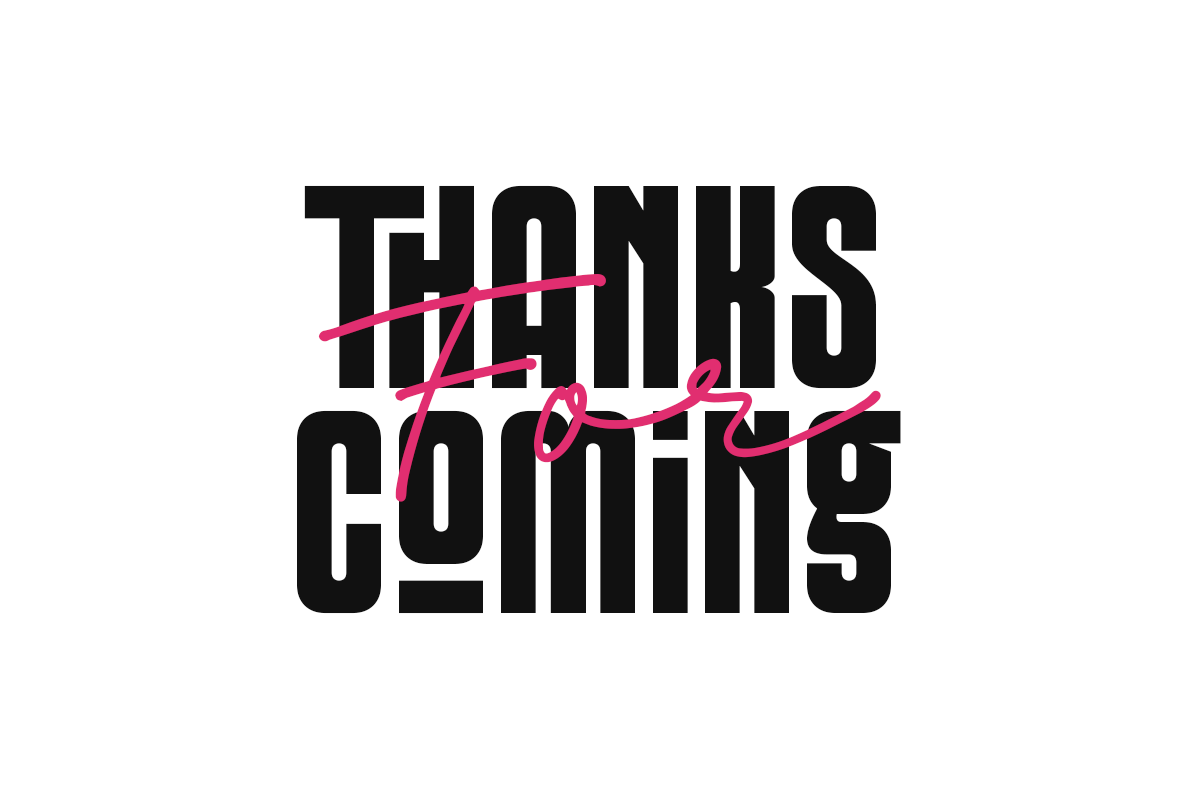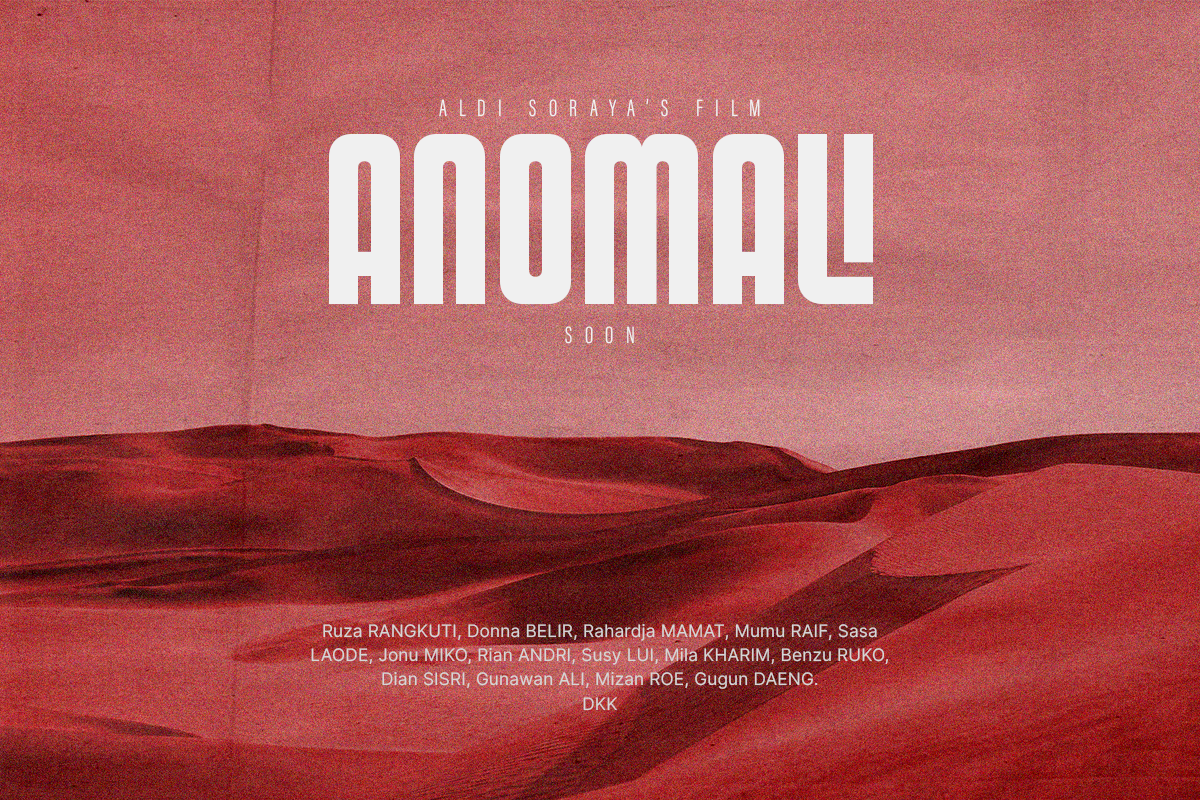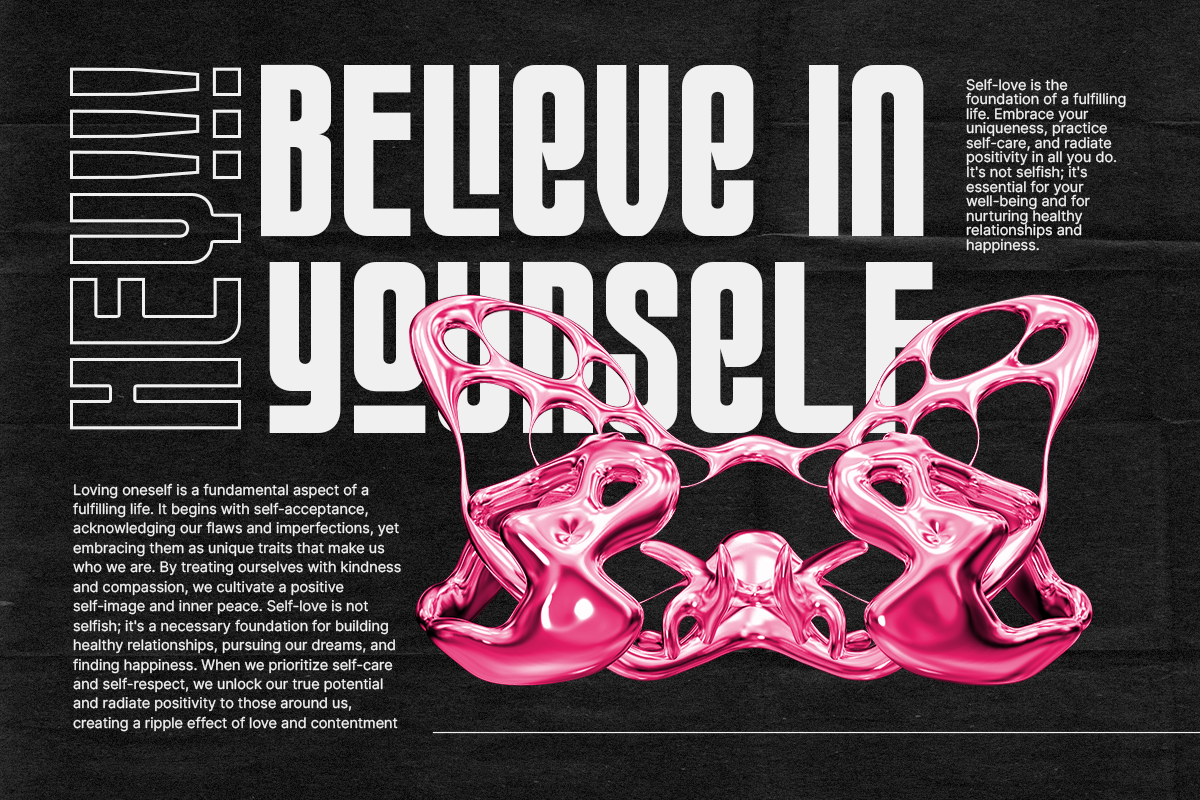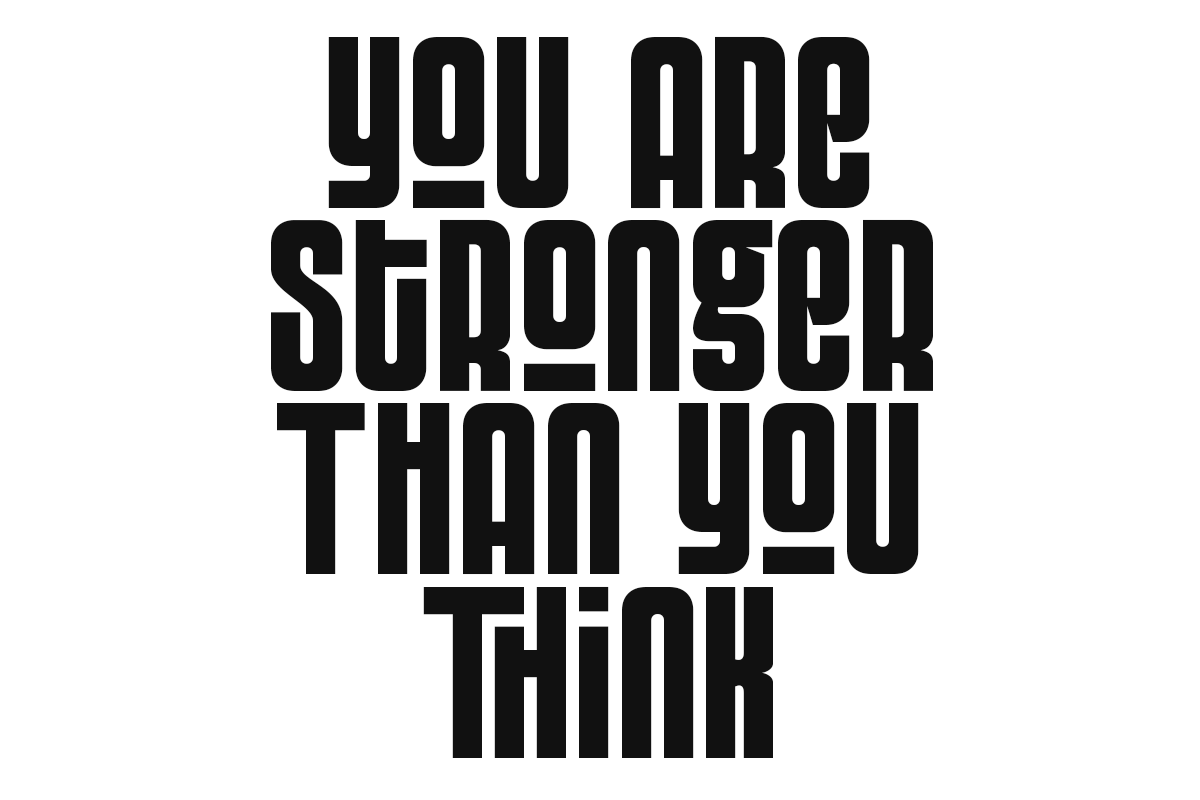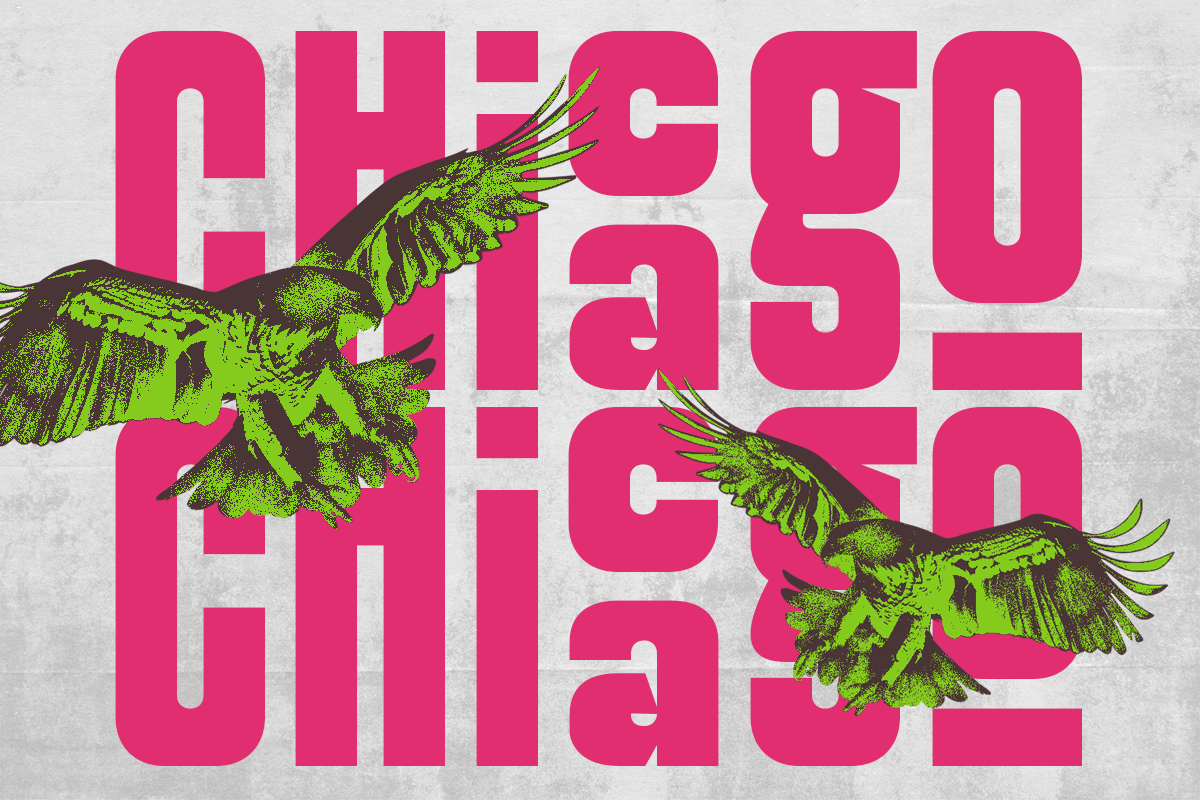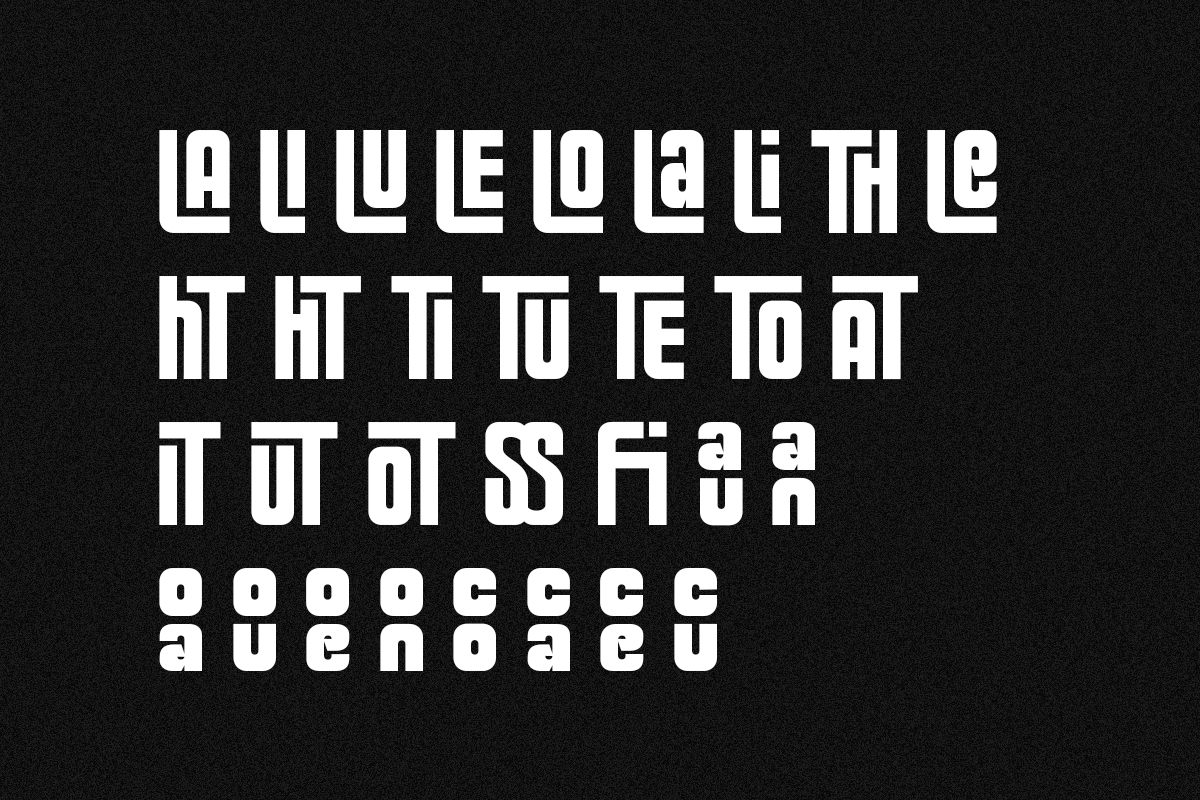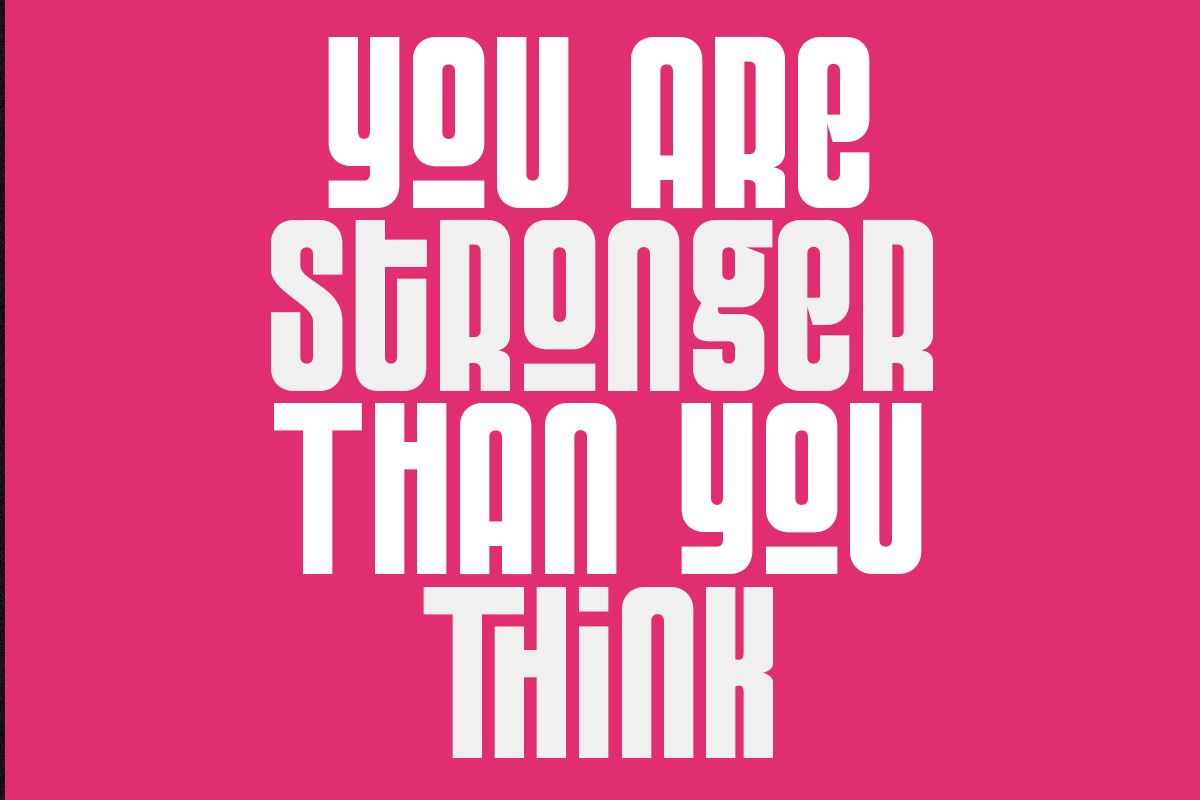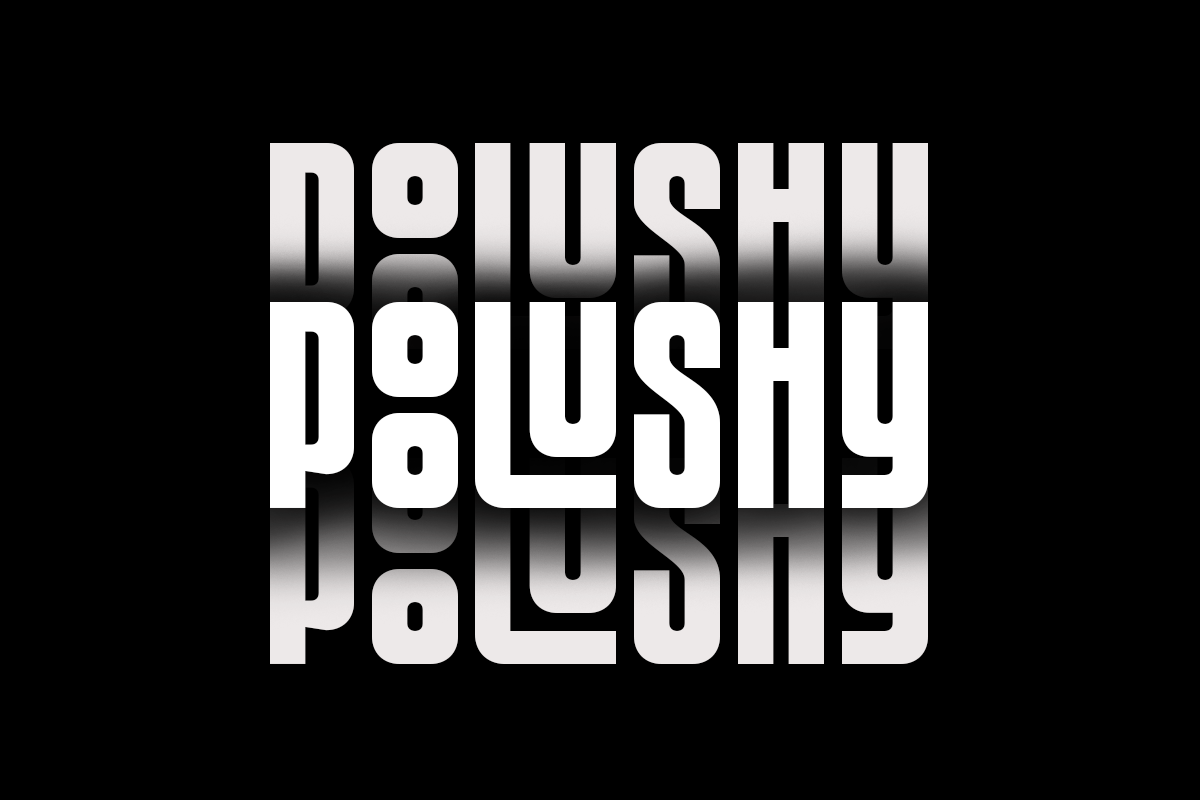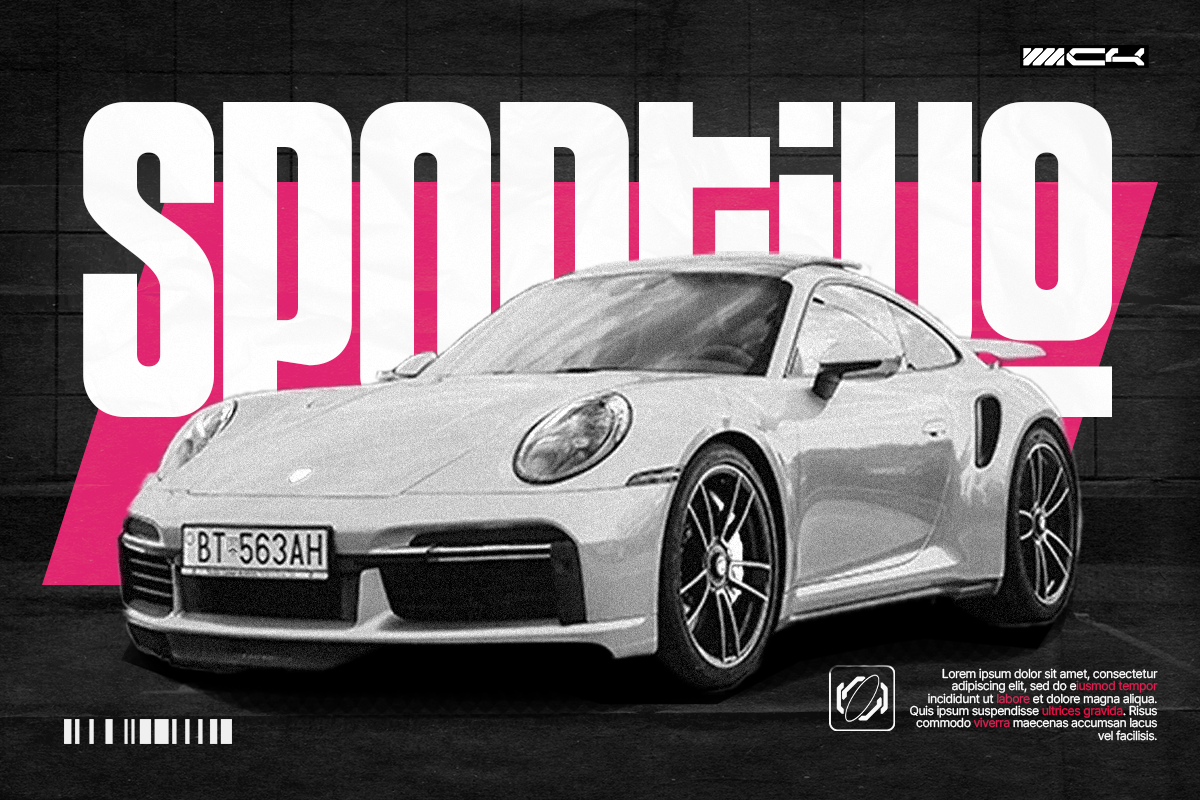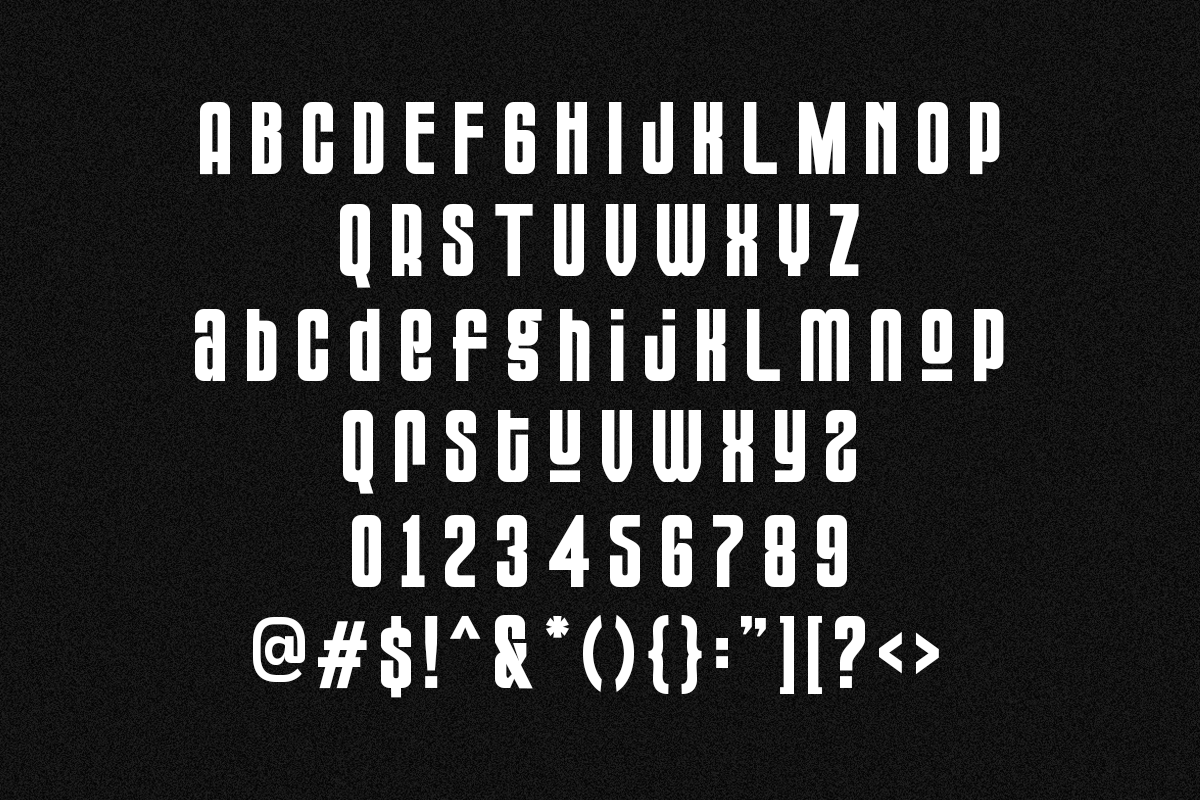
Poolushy-Condensed Font
Discover the captivating power of "Poolushy," an impressive condensed sans-serif font that redefines boldness and sophistication in typography. With its tall and robust style, "Poolushy" stands out as the perfect choice for creating attention-grabbing posters and commanding headlines in your design projects.
Bold and Tall: "Poolushy" boasts a strikingly bold and tall design, making it a go-to choice when you need your text to command attention and leave a lasting impression.
Versatile Applications: Whether you're working on posters, advertisements, web design, branding, or editorial layouts, "Poolushy" effortlessly adds an elegant and sturdy touch to your creations.
Condensed Sans Serif: Its condensed sans-serif nature ensures efficient space usage without compromising readability, making it a versatile font for various design contexts.
Elegance and Strength: "Poolushy" strikes the perfect balance between elegance and strength, making it an ideal choice for projects that demand a refined yet powerful aesthetic.